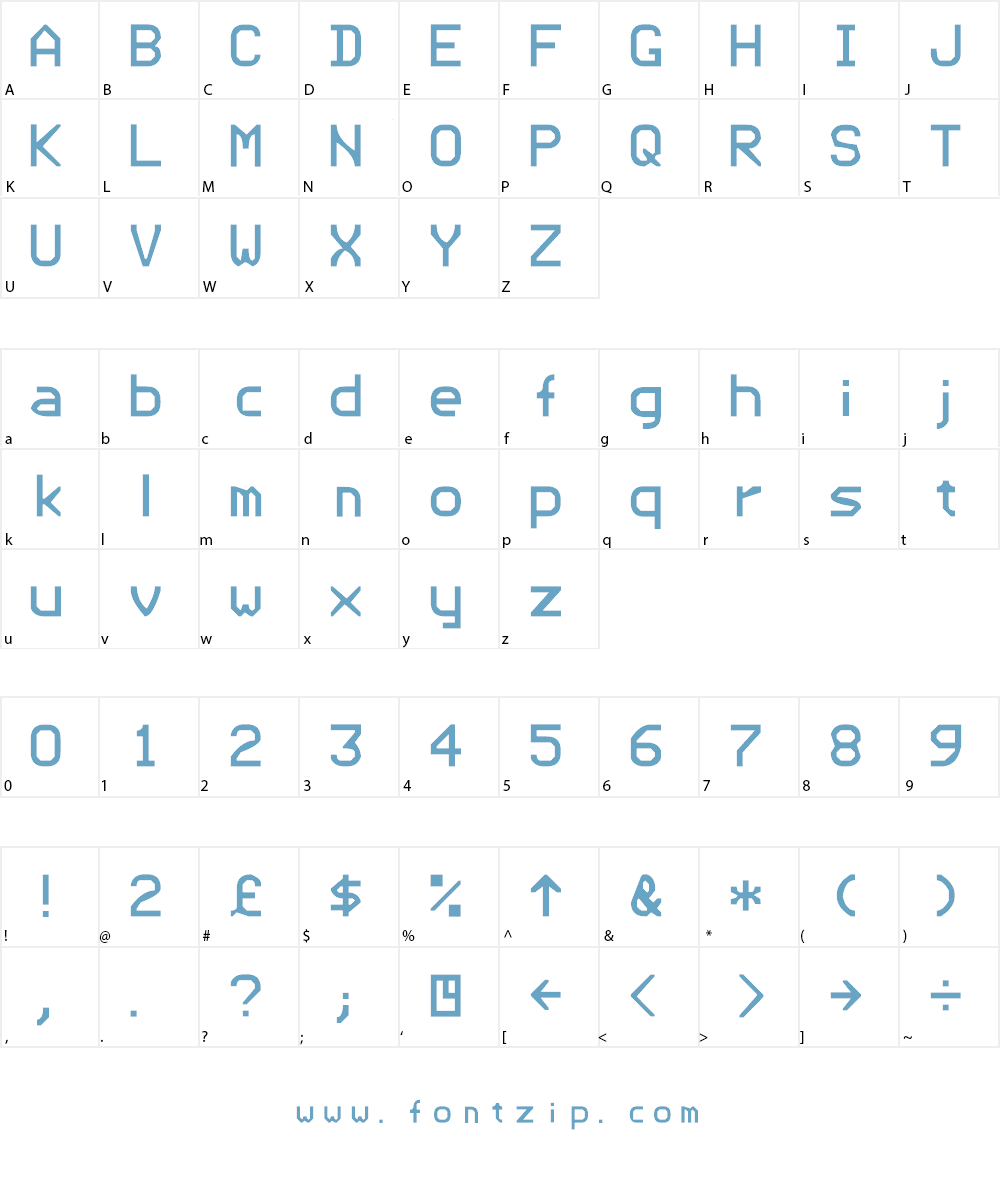
This font was originally generated by the Texas Instruments TIFAX teletext decoder as used in the very first teletext tv sets. The character generator ROM was the 74S262 chip, which was also used for the Research Machines 380Z microcomputer.
The font has been smoothed to look good in almost all sizes but looks best at around 20pt. Certain characters are different to the normal ascii: Backslash produces a "half" symbol, Hash produces a pound sign and the underscore produces a hash amongst others.
The font has been updated to include some foreign language symbols and the strange glyphs from the original ROM are also included